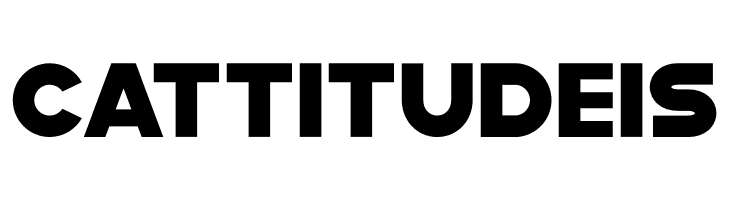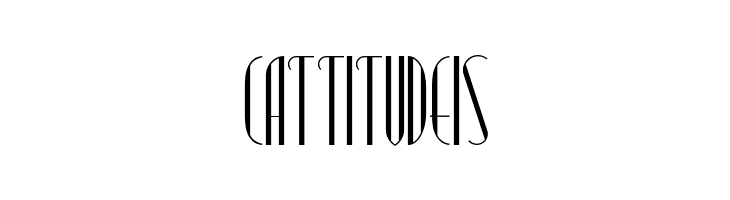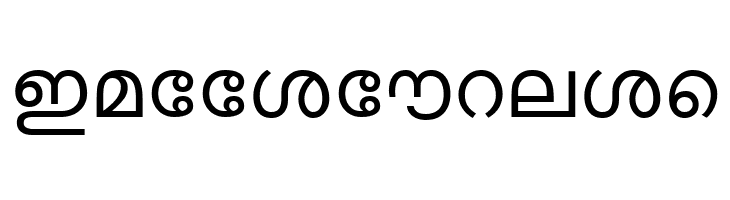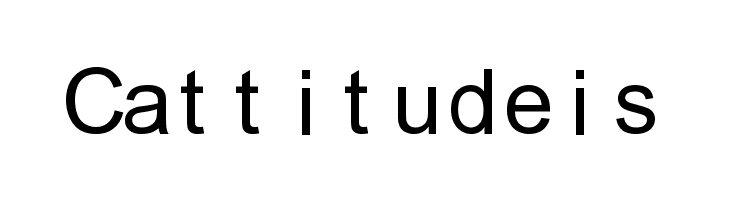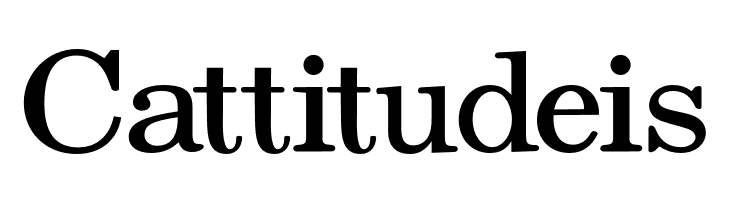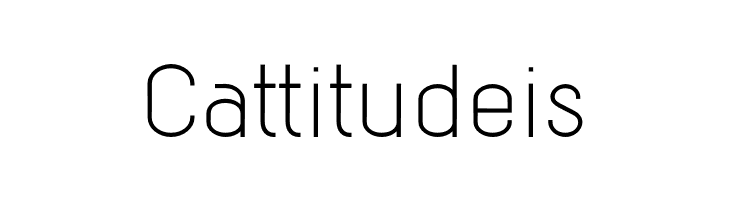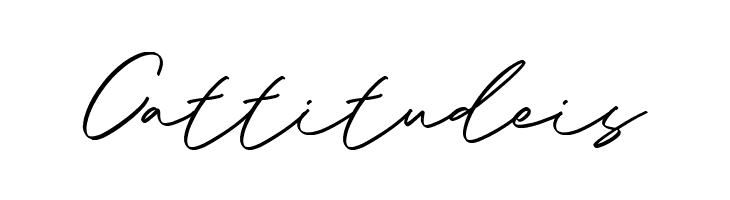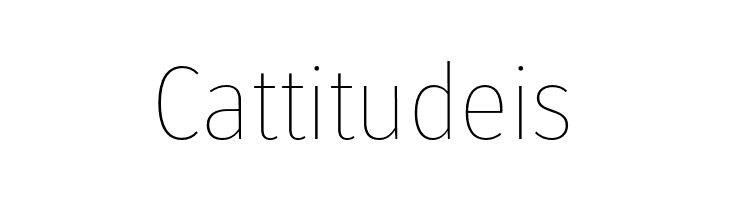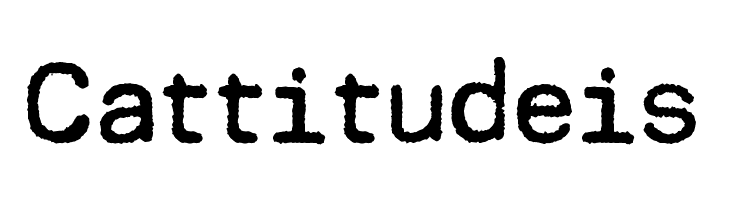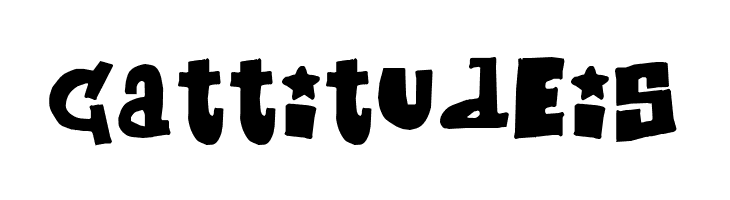
A futuristic, geometric font with a stencil-like design and bold, rounded edges.
Casual handwritten font with rounded, playful strokes.
A clean, monospaced font ideal for coding and technical documents.
A playful, hand-drawn font with whimsical uppercase and bold lowercase letters.
A diverse set of illustrated dingbats with a playful and retro vibe.
A playful, bold font with irregular, whimsical letterforms.
A pixelated, geometric font with a retro digital aesthetic.
A futuristic, geometric font with bold, modular characters.
A bold, irregular, and playful font with a hand-drawn appearance.
A bold, decorative font with high contrast and playful detailing.
A modern, geometric typeface with clean lines and balanced proportions.
A modern take on the classic typewriter font with a slightly distressed, vintage look.
A tall, narrow font with high contrast and modern elegance.
A modern, monospaced font with a clean and minimalistic design.
A modern, art nouveau-inspired font with geometric shapes and elongated forms.
A bold, grunge-style font with rough, jagged edges and dynamic strokes.
A tall, narrow, and modern font with minimal stroke contrast.
A bold, geometric font with a modern and impactful design.
An elegant, flowing script font with graceful curves and loops.
A bold, high-contrast serif font with elegant and classic styling.
A lively, handwritten font with dynamic strokes and expressive character.
A dynamic and fluid handwritten script with elegant, flowing strokes.
A modern sans-serif font with a semi-bold weight, offering clarity and versatility.
A thin, modern font with clean lines and elegant simplicity.
A playful, geometric font with characters enclosed in circles, connected like molecules.
A classic serif font with bold strokes and high contrast, perfect for elegant designs.